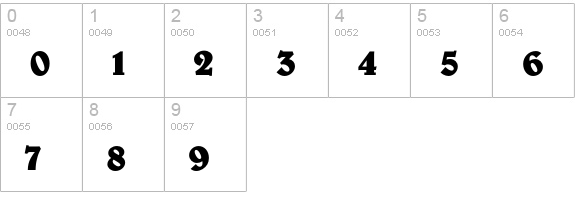
BelweEF-Bold Font Details
BelweEF-Bold is a strong, high-contrast variant in the BelweEF typeface family \xE2\x80\x94 well suited to headlines, attention-grabbing titles, and strong calls-to-action.
BelweEF-Bold is a striking and bold font that exudes elegance and sophistication. Its strong, clean lines make it ideal for creating eye-catching headlines and titles. The font's unique characteristics give it a timeless and classic appeal, making it suitable for a wide range of design projects. What sets BelweEF-Bold apart is its versatility - it can be used in both print and digital media with equal impact. Whether you're working on a poster, flyer, website, or branding project, this font will make a bold statement. And the best part? BelweEF-Bold is completely free to download at FontsMarket.com. So go ahead and enhance your designs with this stunning font today!